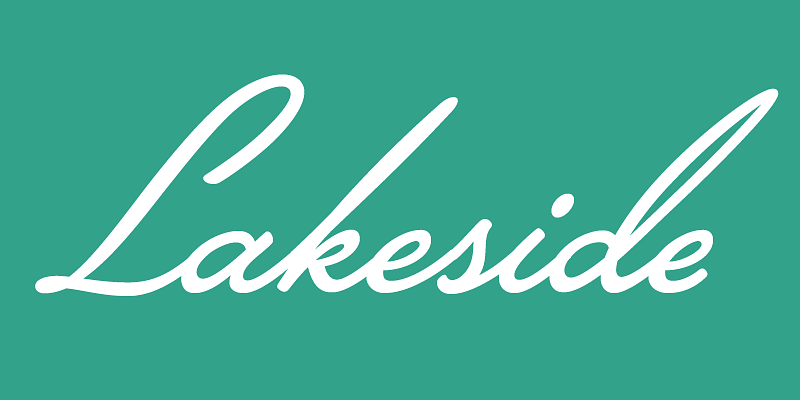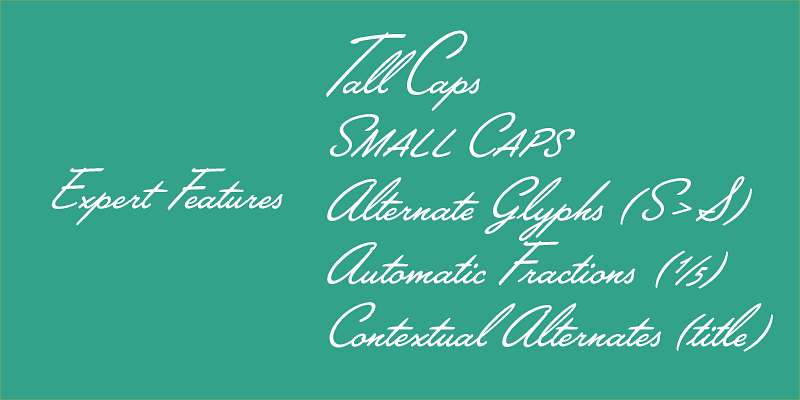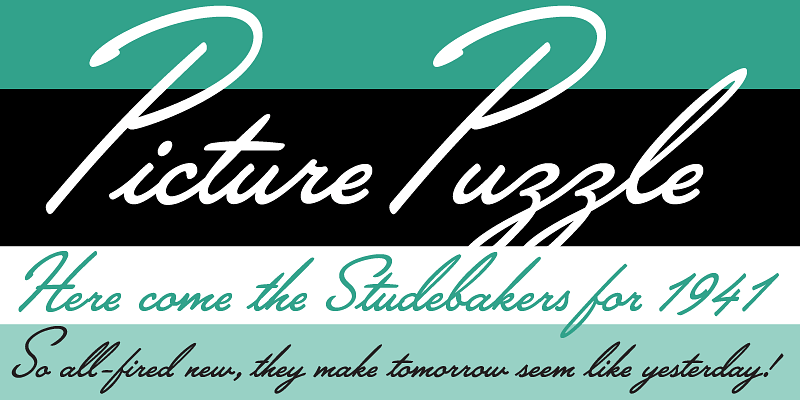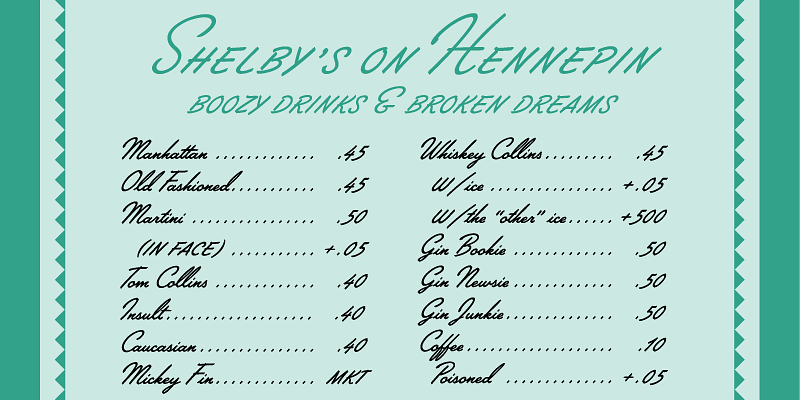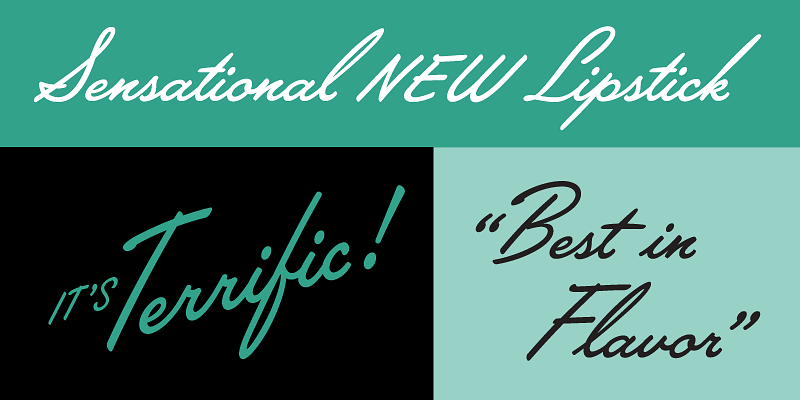
Lakeside (2008) is a flowing 1940s-style brush script, inspired by hand-lettered titles in Otto Preminger’s classic 1944 film noir movie “Laura.” Lakeside uses OpenType magic to automatically mimic real Script lettering, choosing the best letter shapes based on where they fall in a word and what letters are nearby. It also includes three sizes of capitals: Normal capitals for typical settings, tall capitals for a more elegant effect, plus a small, plain set of capitals for setting in all caps, something not usually possible with script faces.